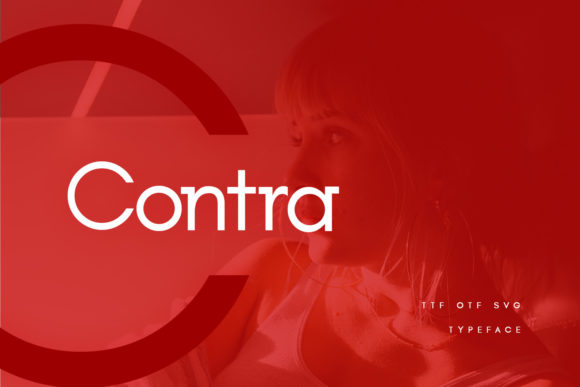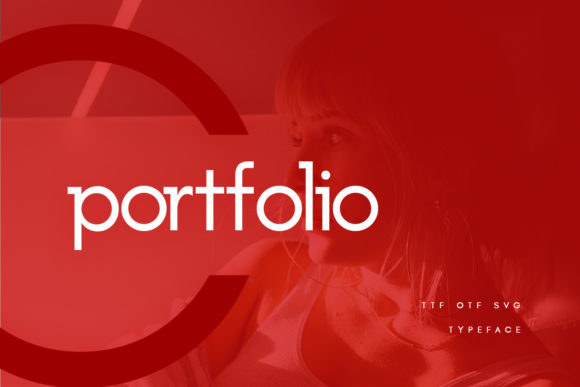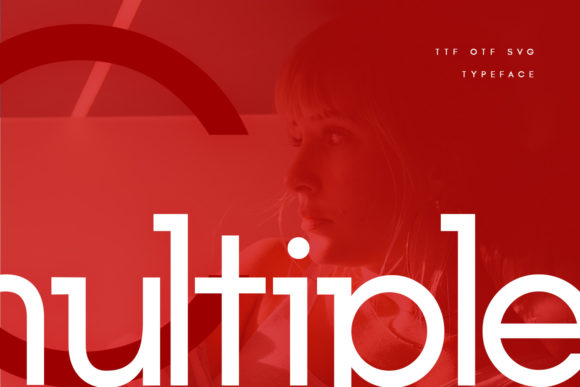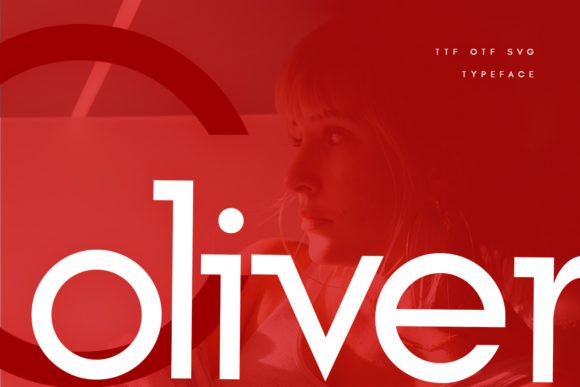
Contra
Contra: A Versatile and Enhancing Slab Serif Font
Contra is a distinctive slab serif font that offers designers a powerful tool for creating impactful typography across a wide range of design projects.
Key Features of Contra
• Slab Serif Structure: Incorporates the characteristic thick, rectangular serifs typical of slab serif fonts
• Versatile Application: Suitable for a variety of topics and design contexts
• Enhancing Quality: Has the potential to elevate and improve any creative project
• Valuable Asset: A wonderful addition to any font library
Ideal Uses for Contra
Contra’s versatile characteristics make it well-suited for a wide range of applications, including:
• Branding and logo design
• Editorial layouts and headlines
• Poster and advertisement designs
• Web and digital content
• Packaging design
When incorporating Contra into your designs, consider the following tips:
• Experiment with different sizes to showcase its versatility across various design elements
• Consider pairing with complementary fonts to create hierarchy and visual interest
• Utilize its enhancing qualities to elevate the overall look of your projects
• Take advantage of its adaptability to different topics and themes
Contra is an excellent choice for designers looking to add a versatile and enhancing slab serif to their typographic toolkit. Its ability to elevate designs makes it stand out in the world of typography. Whether you’re working on logo designs, creating layouts for editorial projects, or developing branding for various businesses, Contra offers the perfect blend of versatility and enhancement potential.
Add Contra to your font library and explore how it can bring a new level of sophistication to your design projects. From striking headlines to elegant body text, this font provides the tools to create impactful and memorable typography that enhances any creation, regardless of the topic.